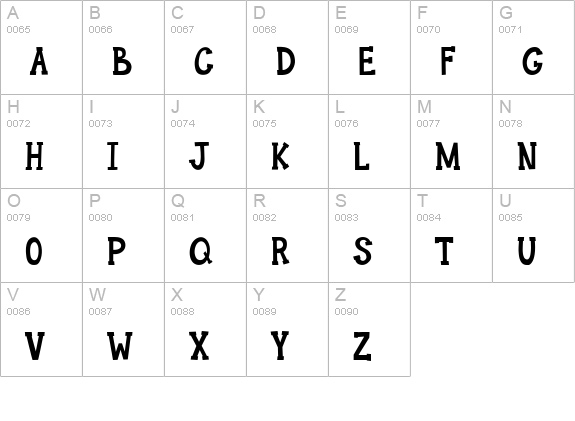
Introducing the Funny Sports Font - a playful and energetic font perfect for adding a touch of humor to your sports-related designs! This font is bold, dynamic, and sure to make a statement. Its quirky and fun style will bring a lighthearted feel to any project, whether it's a poster for a sporting event or a fun social media graphic.
The Funny Sports Font is not only eye-catching but also versatile, making it ideal for a wide range of design purposes. Whether you're creating a logo for a sports team or designing a funny slogan for a t-shirt, this font will add a unique and playful touch to your work.